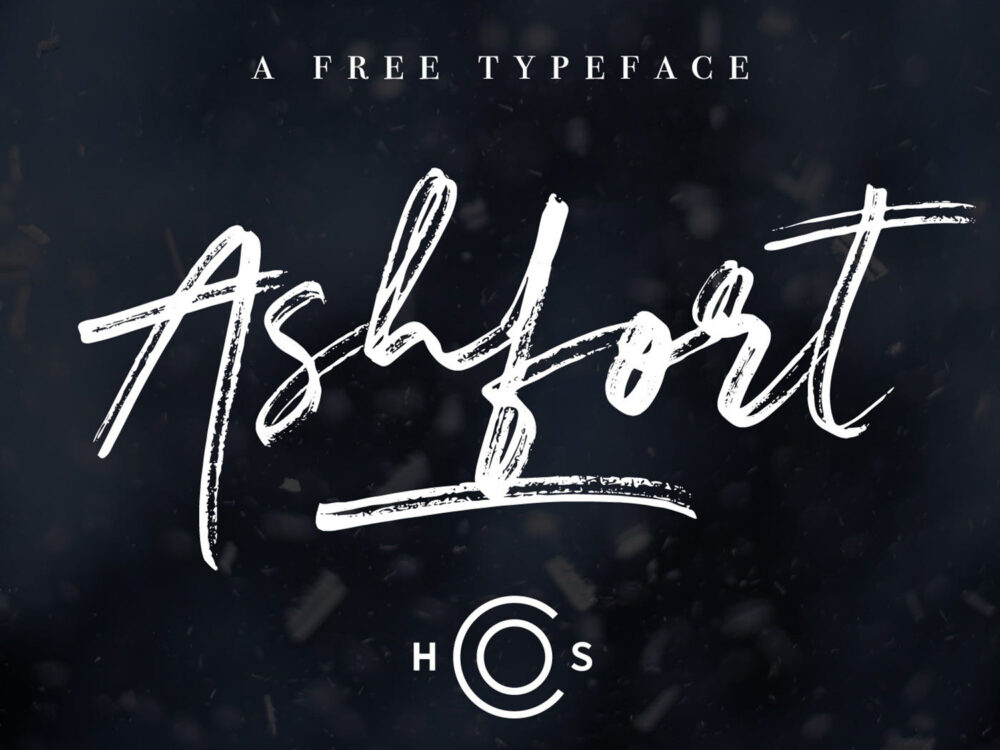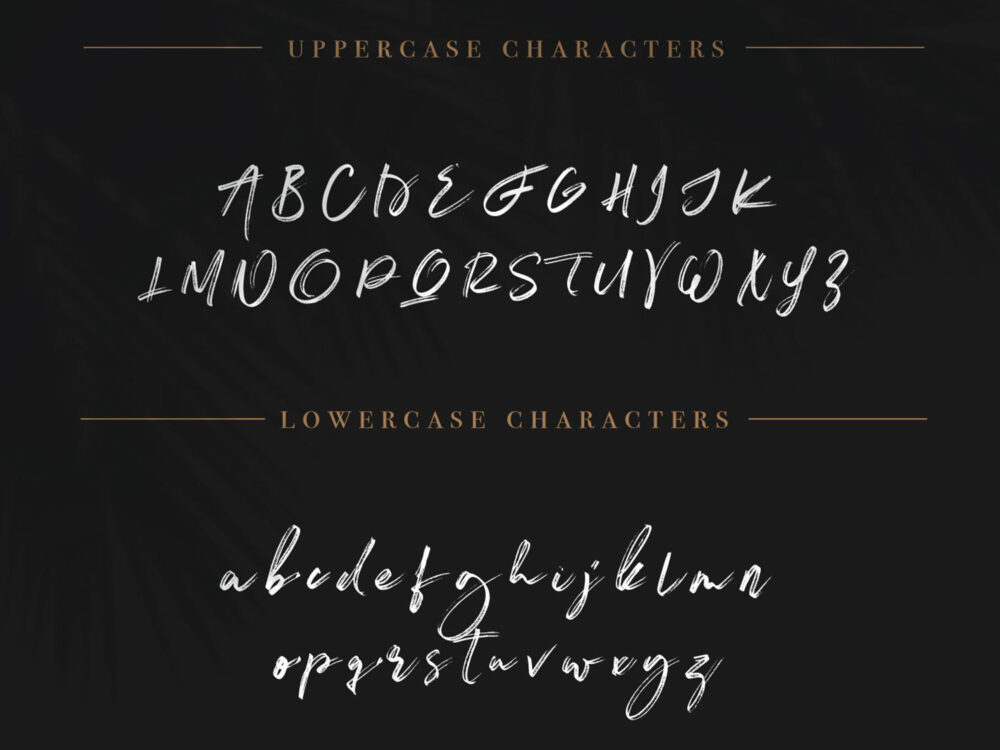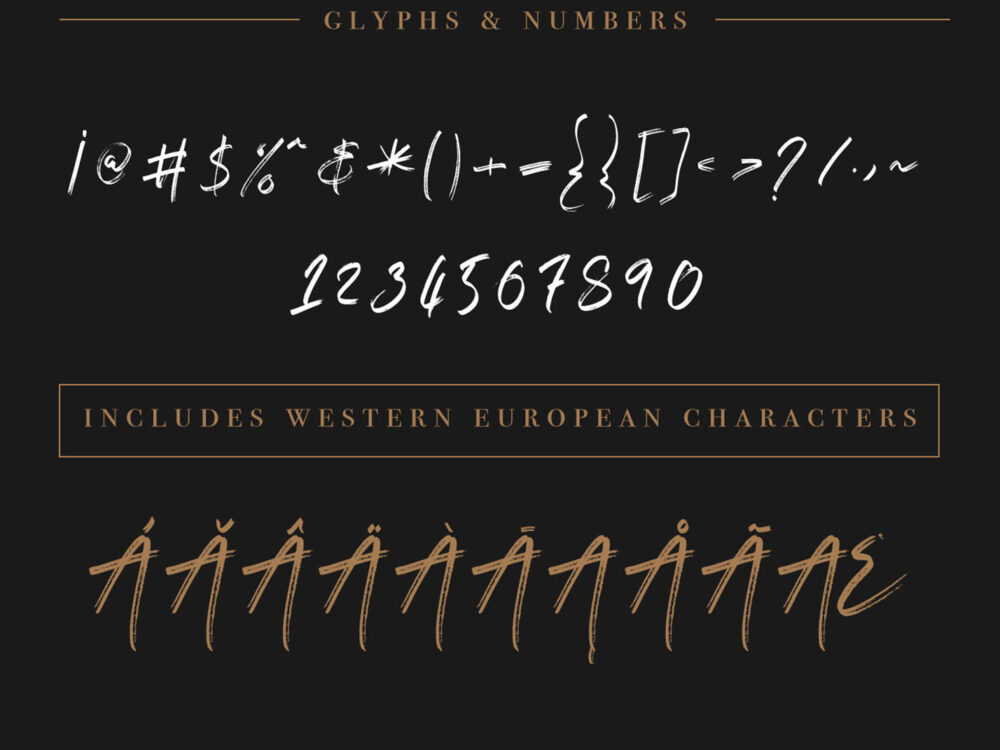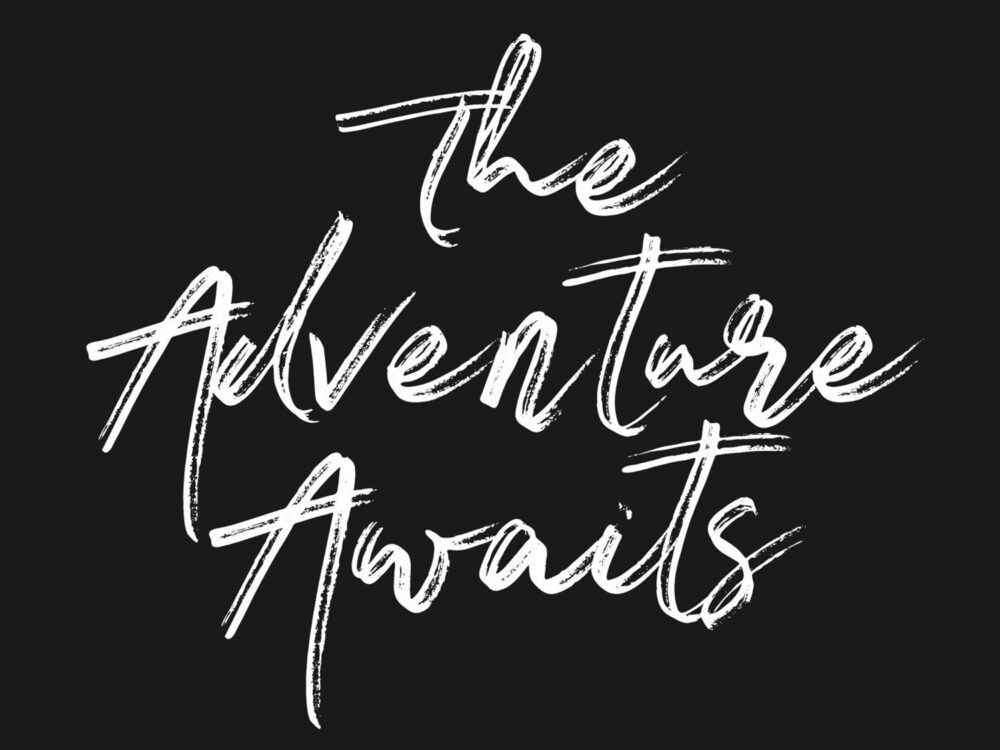
Free Ashfort Brush Font
Free Ashfort Brush Font is a beautiful free hand-drawn style font with an interesting catchy texture. This font is universal and suitable for any design projects of any complexity in which it is necessary to use a hand-drawn font.